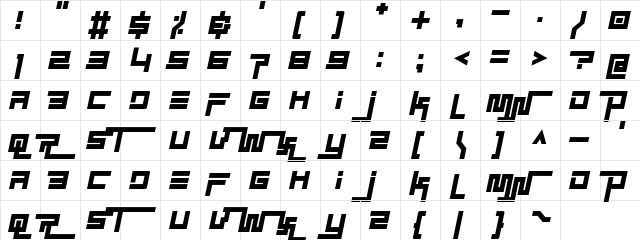
Simplicity Extend Italic
| Designer | J鳯n Garnica |
Design Context for Simplicity Extend Typeface
Simplicity Extend is a composed and adaptable typeface that performs quietly and consistently across a wide range of design contexts. Its italic angle brings a sense of urgency and motion to the letterforms.
Pro Tip: Use Simplicity Extend for emphasis, pull quotes, and subheadings where its slanted energy can add rhythm to the layout.